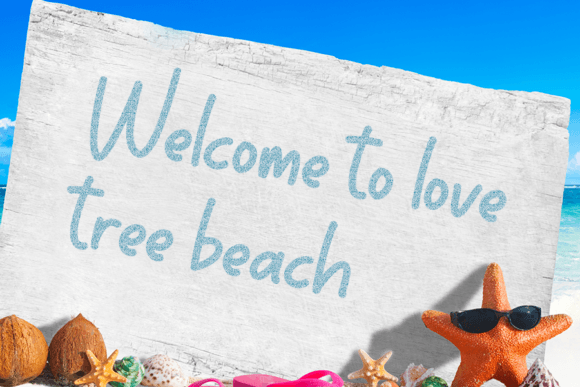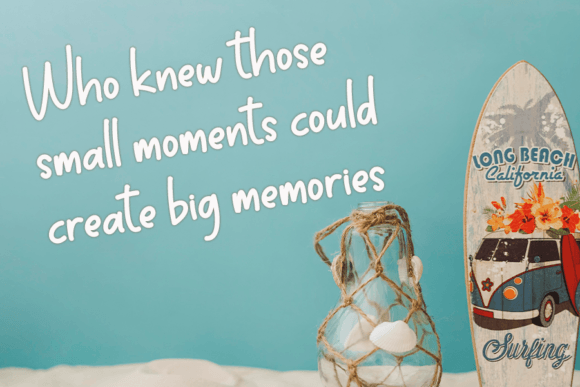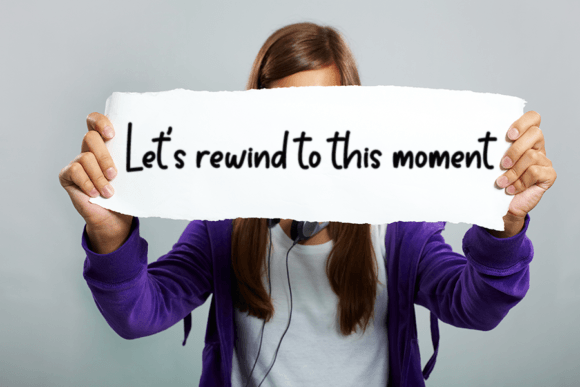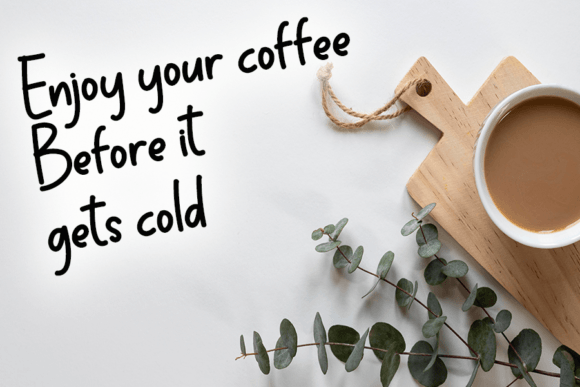
Discover the Charm of Beach House Font
Have you ever been browsing through a design blog or social media and stumbled upon a beautiful handwritten font that immediately caught your attention? For many designers, this is a familiar experience. It’s that moment when you know you’ve found the perfect font to elevate your next project. For those in search of a font that exudes elegance and sophistication, we’ve got you covered. Introducing the Beach House Font, a stunning handwritten font designed to make your designs stand out.
The Beach House Font is perfect for designers looking to add a touch of warmth and personality to their projects. With its unique and timeless style, this font is ideal for creating beautiful invitations, quotes, and social media graphics. Its versatility makes it a valuable asset for any designer’s toolkit. Whether you’re working on a personal project or a commercial design, the Beach House Font is sure to impress.
Key Features of Beach House Font
- Unique Characteristics: Beach House Font features a unique, hand-drawn design with subtle texture and imperfections, giving it a warm and organic feel.
Beach House Font Review
Overall, I think the Beach House Font is a beautiful and unique addition to any design project. It has a certain laid-back, beachy vibe that’s perfect for coastal-inspired designs. ✨
- The font’s subtle irregularities give it a hand-painted feel that adds to its charm.
- The wide range of styles and weights available make it easy to use in a variety of design contexts.
- The font is highly legible, even at small sizes, which is essential for readability.
However, I do have some reservations about the font’s limitations. ⚠️
- The font may not be suitable for formal or professional designs, as it has a somewhat casual feel.
- The font’s unique style may be difficult to pair with other fonts, which could limit its versatility.
- The font may not be as effective in digital contexts, such as on-screen reading, due to its hand-painted feel.
Overall, I think the Beach House Font is a great choice for designers looking for a unique and eye-catching font. With its beautiful, laid-back vibe and wide range of styles, it’s perfect for coastal-inspired designs or any project that needs a little bit of personality.
The Beach House Font is ideal for:
Beach-themed designs, such as summer invitations or surfboard graphics.
Travel or adventure branding, such as travel agency logos or adventure-themed websites.
Coastal or nautical-themed designs, such as restaurant menus or marine-themed websites.